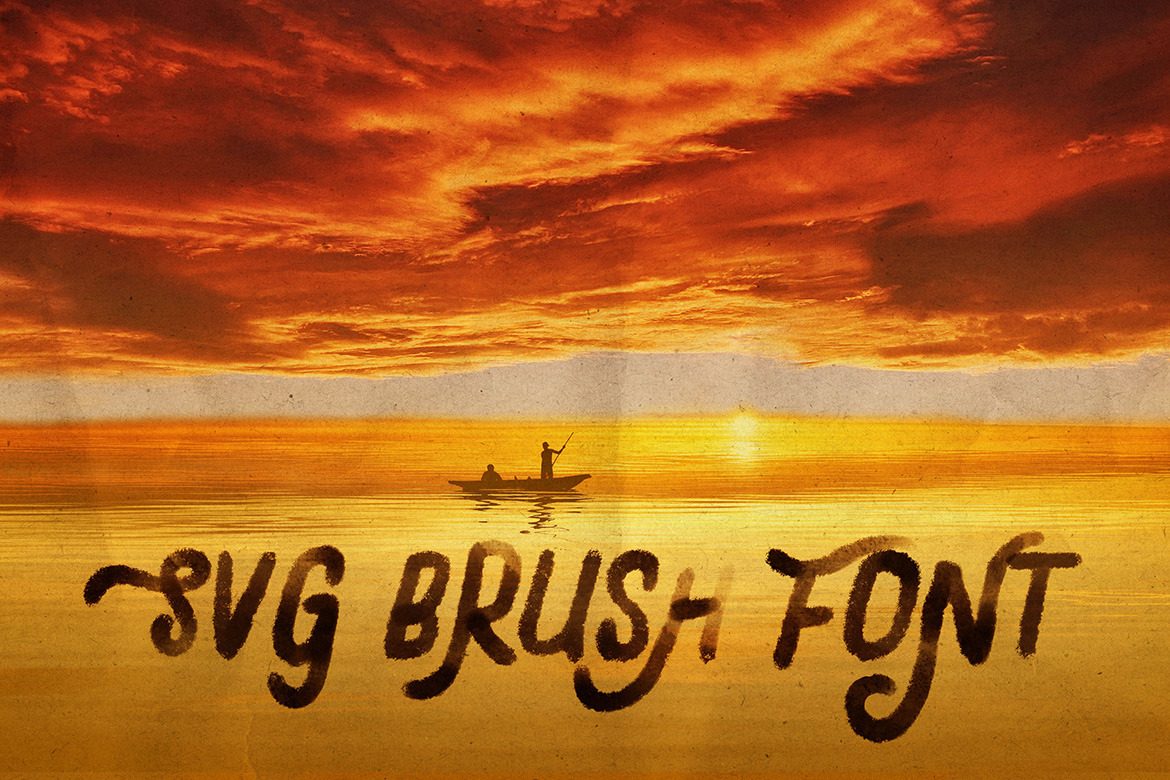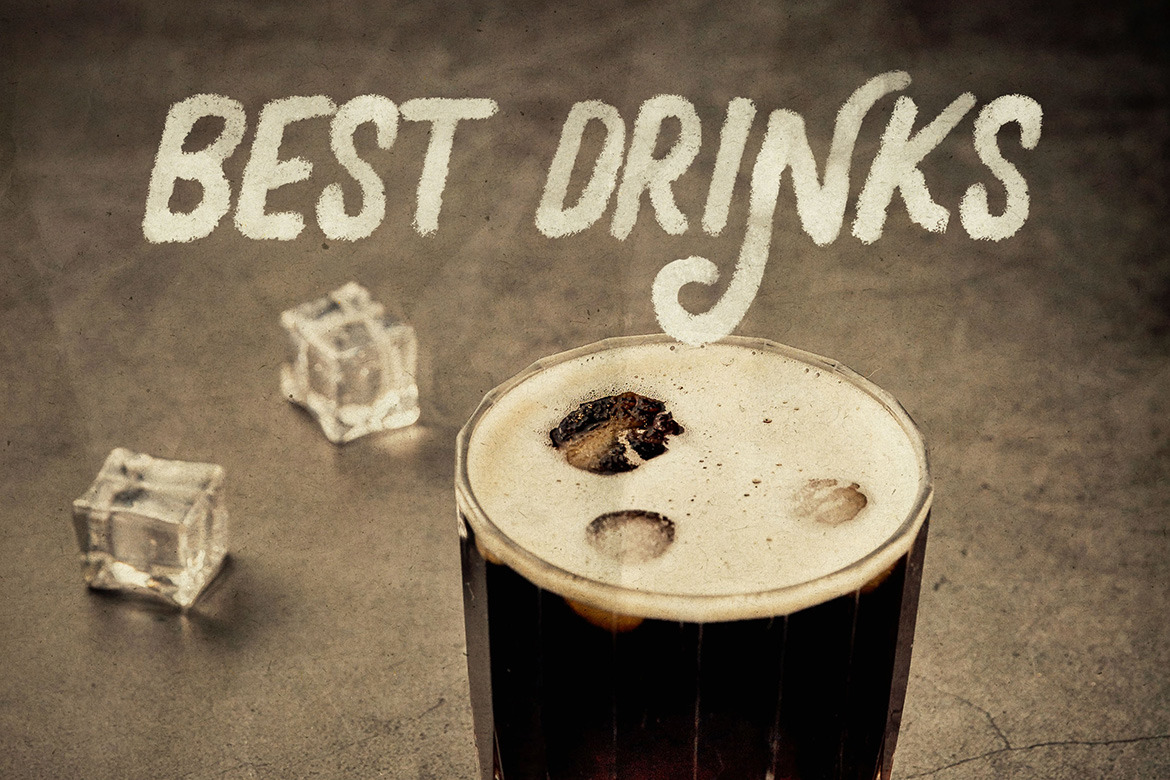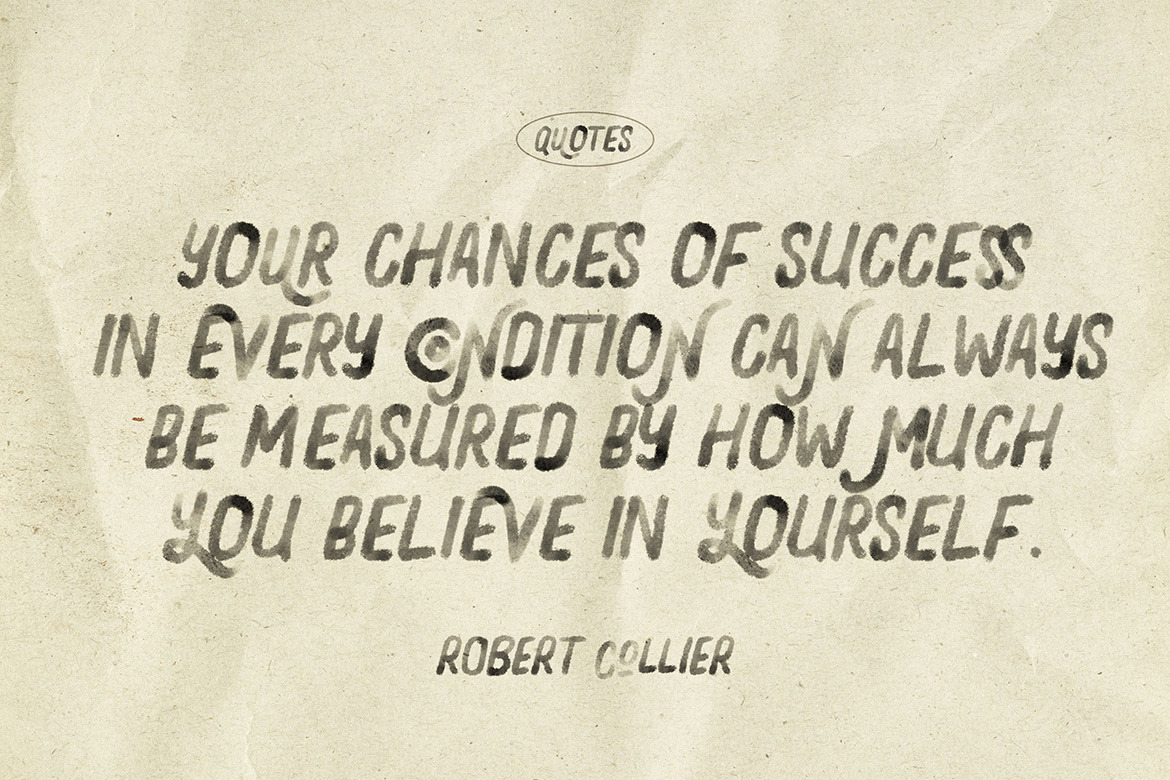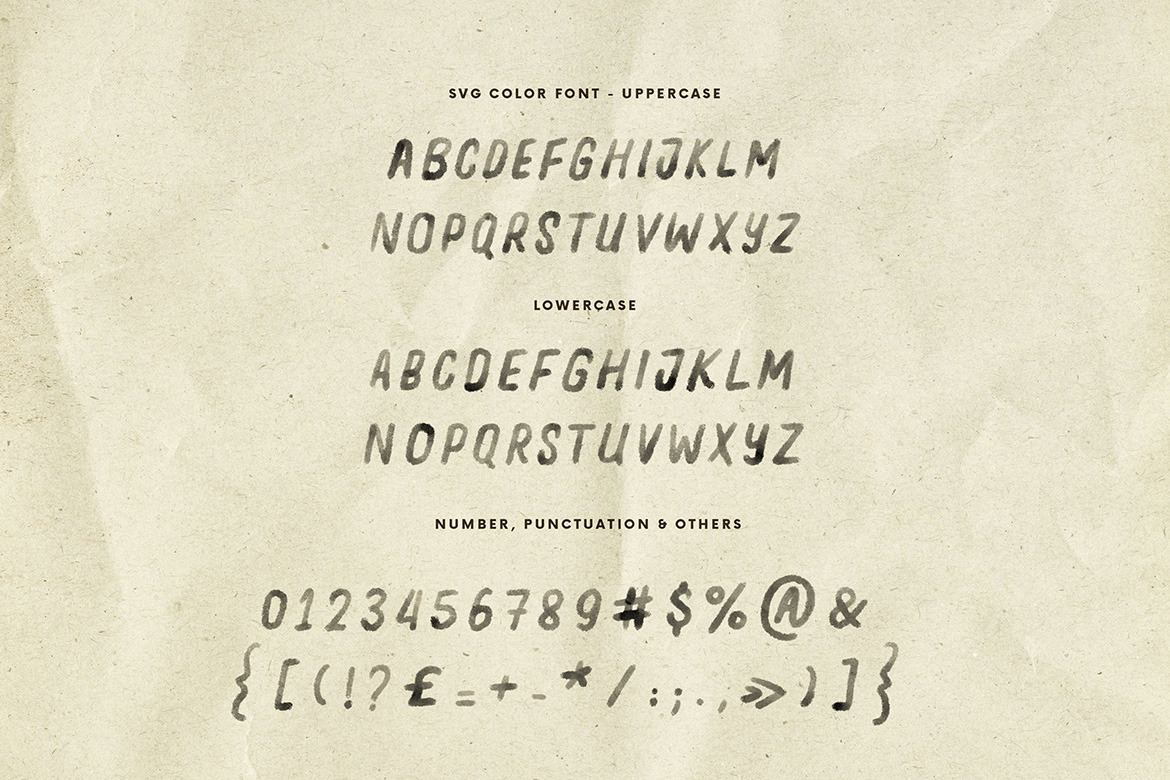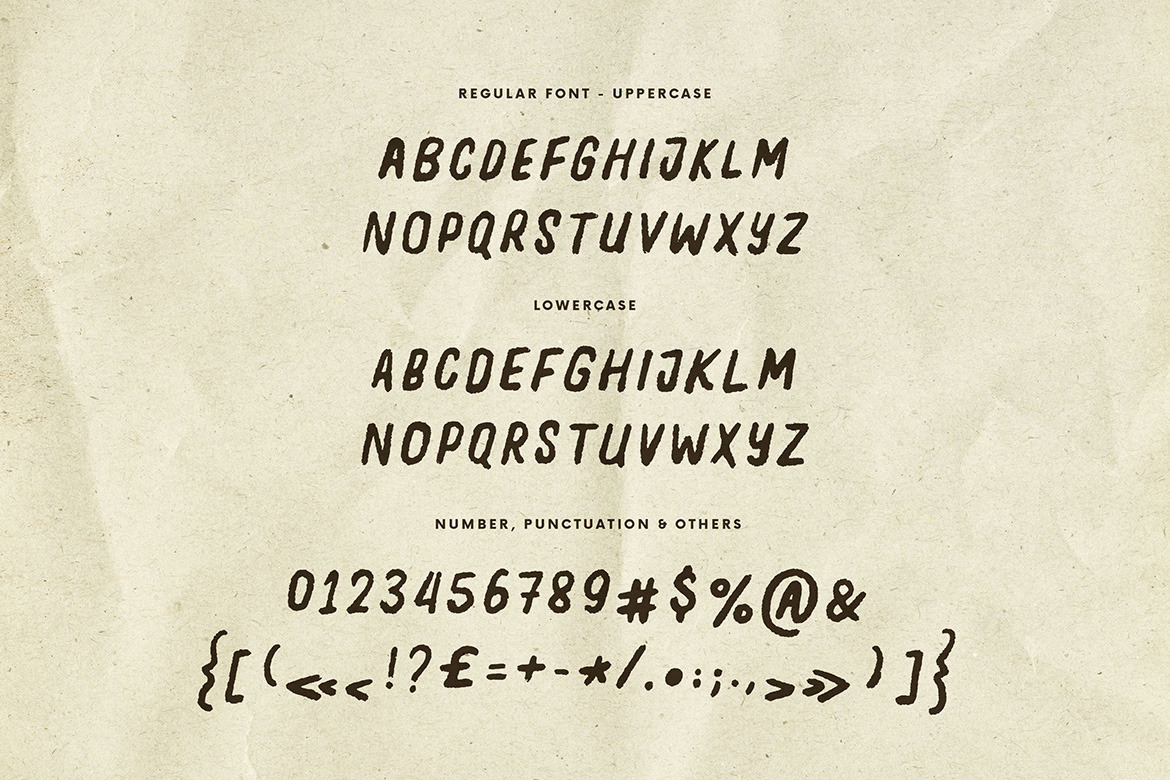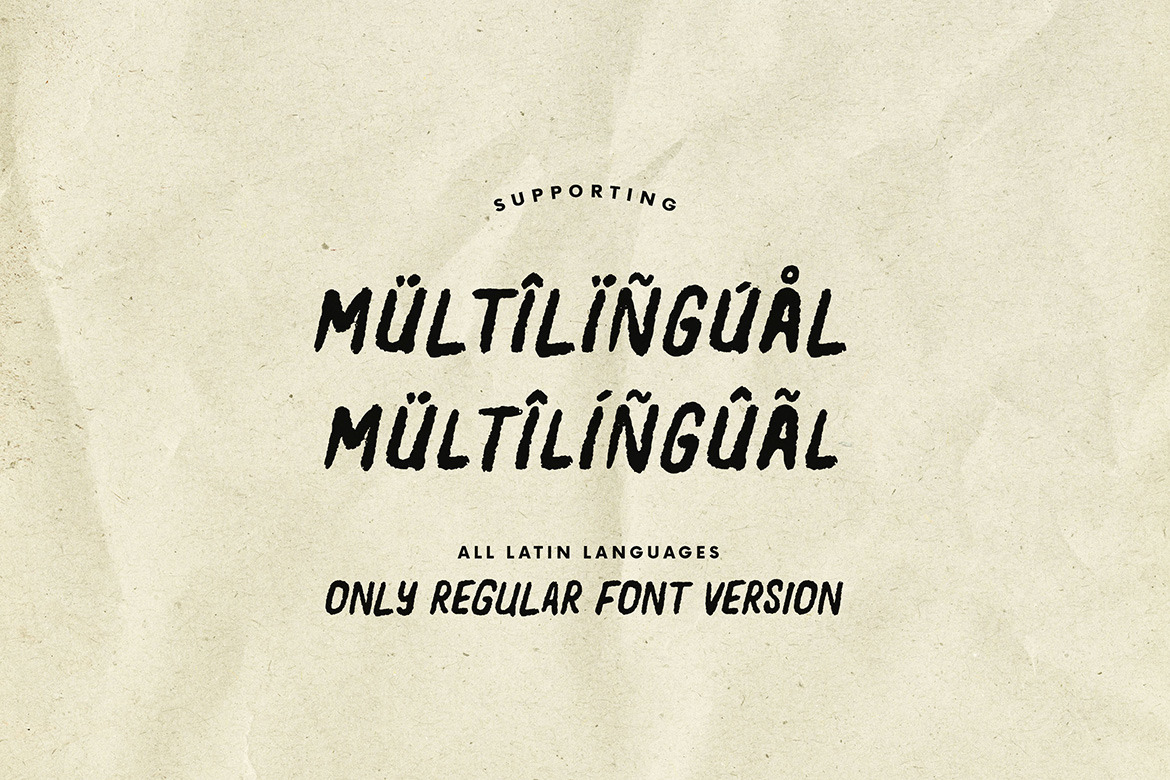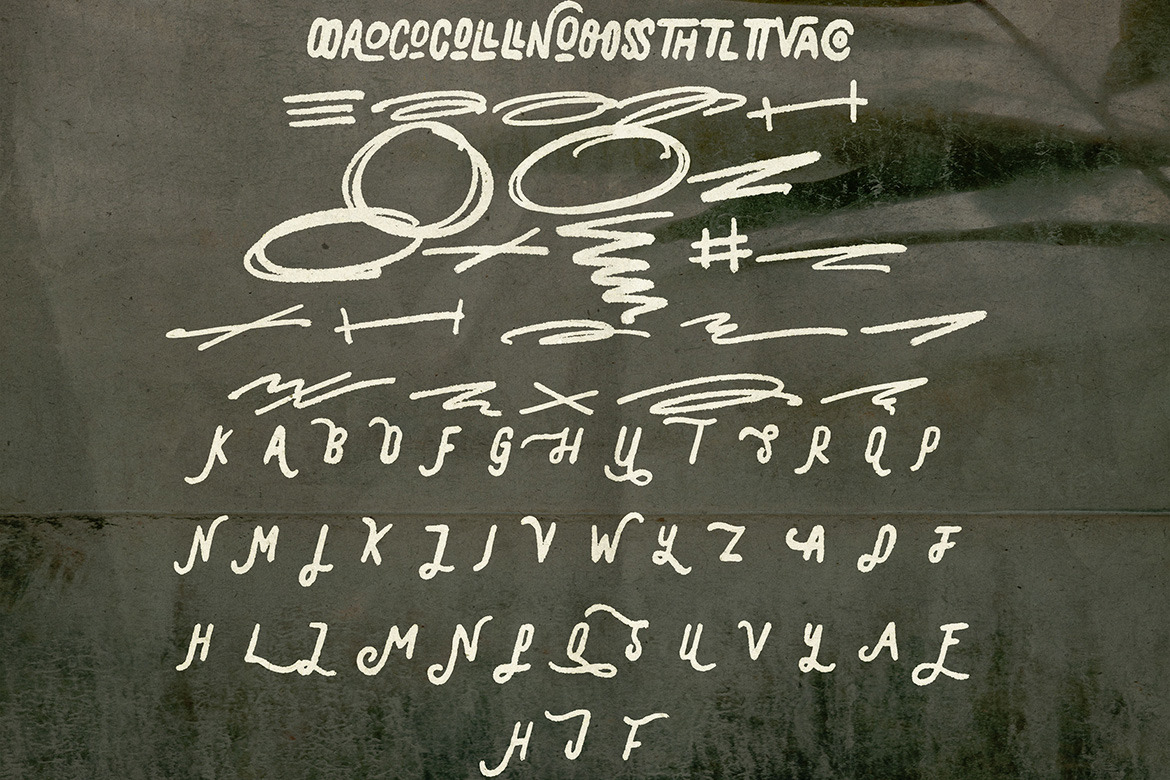
Tangerine Season SVG Brush Font
Brush, rough or grunge style sans serif display font for your new projects. Handwritten with bold marker. Great for grunge, urban or artistic projects!